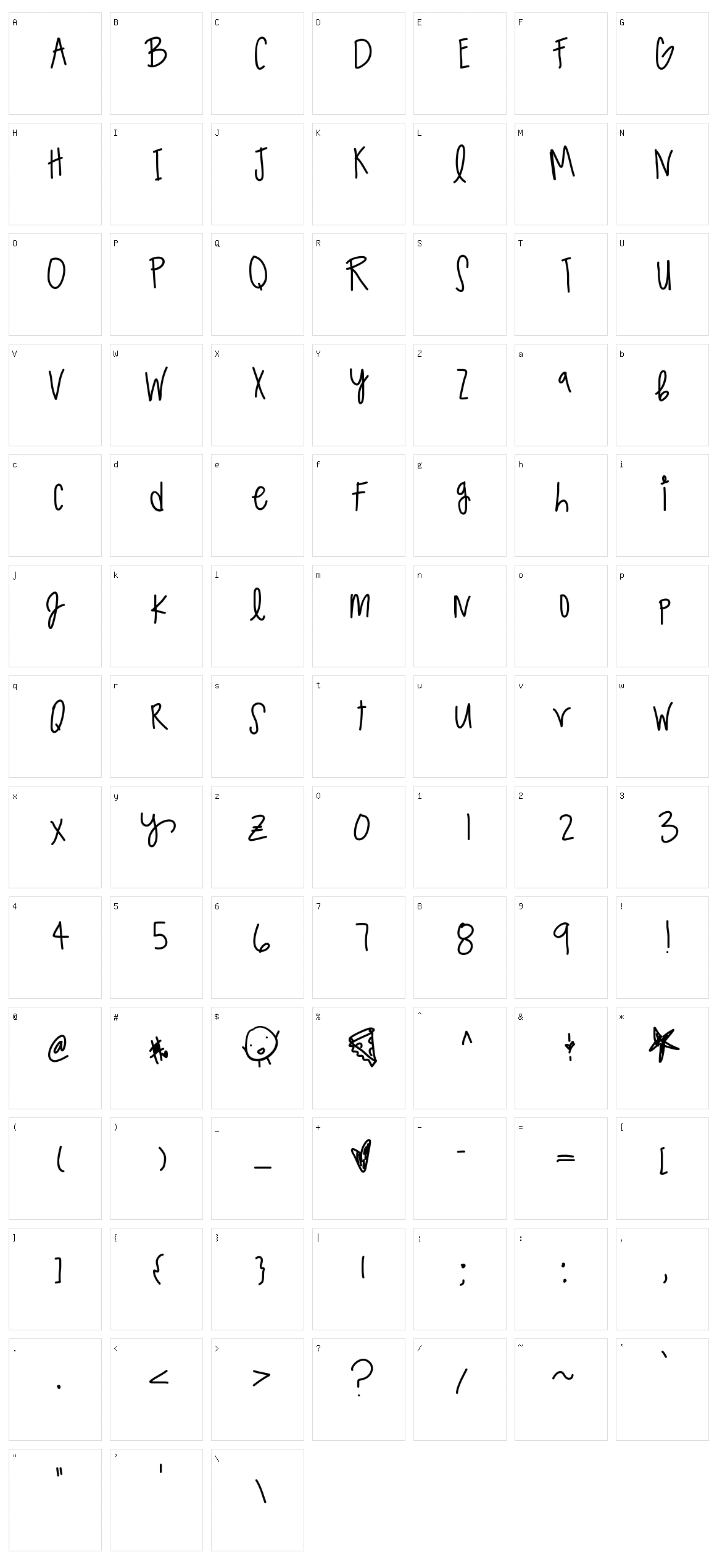
The free font Sparkling Soda is carefully designed by Des Gomez, showcasing a thoughtful balance of creativity and usability and falls under the Script font style. When you download the ZIP file, it contains only 15.27 KB of font files, making it lightweight and quick to download. Please review the license details below to understand permitted usage and distribution rights. If license information is not available, we recommend using this font for personal projects only or contacting the author directly for commercial usage permissions.